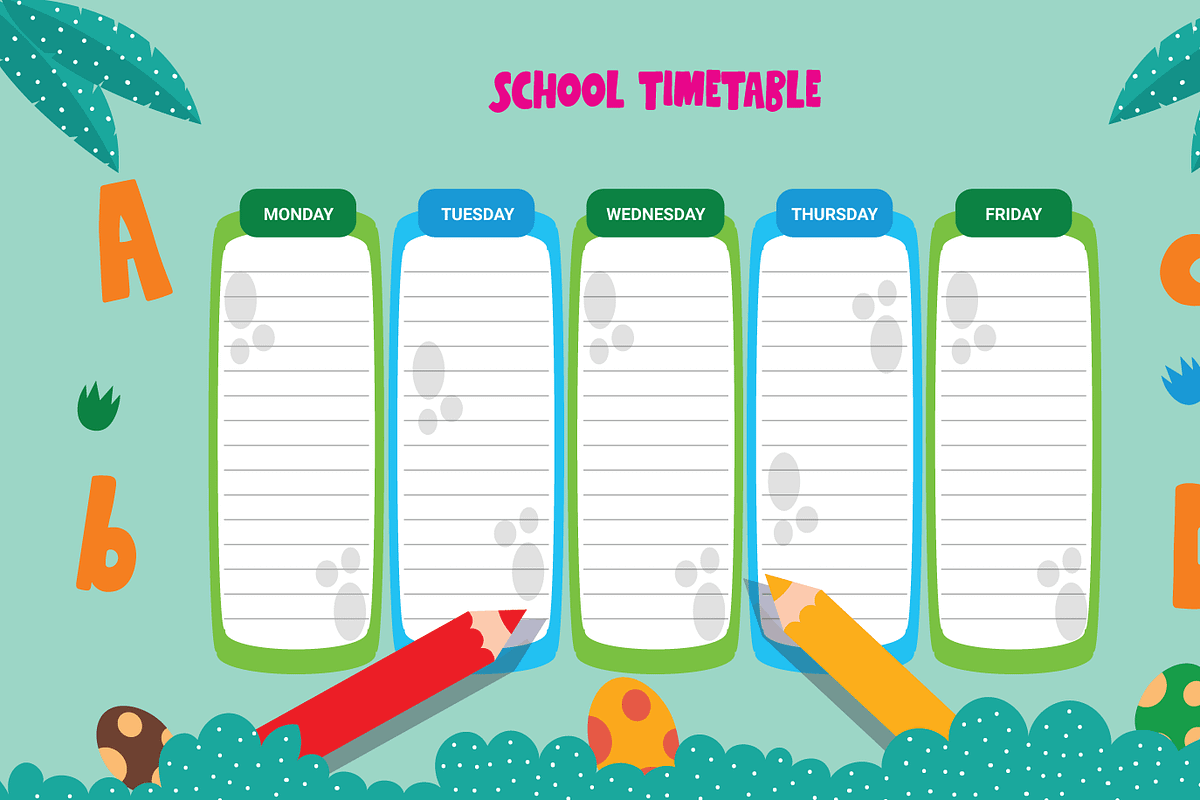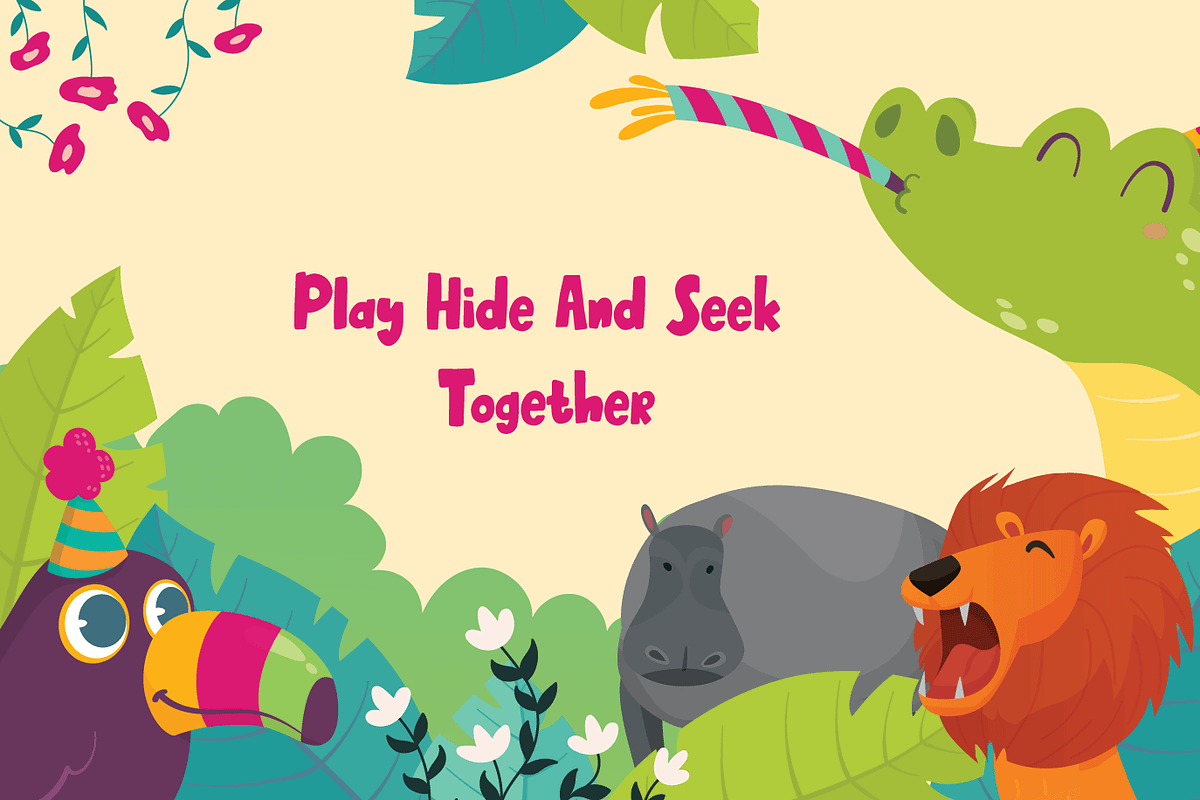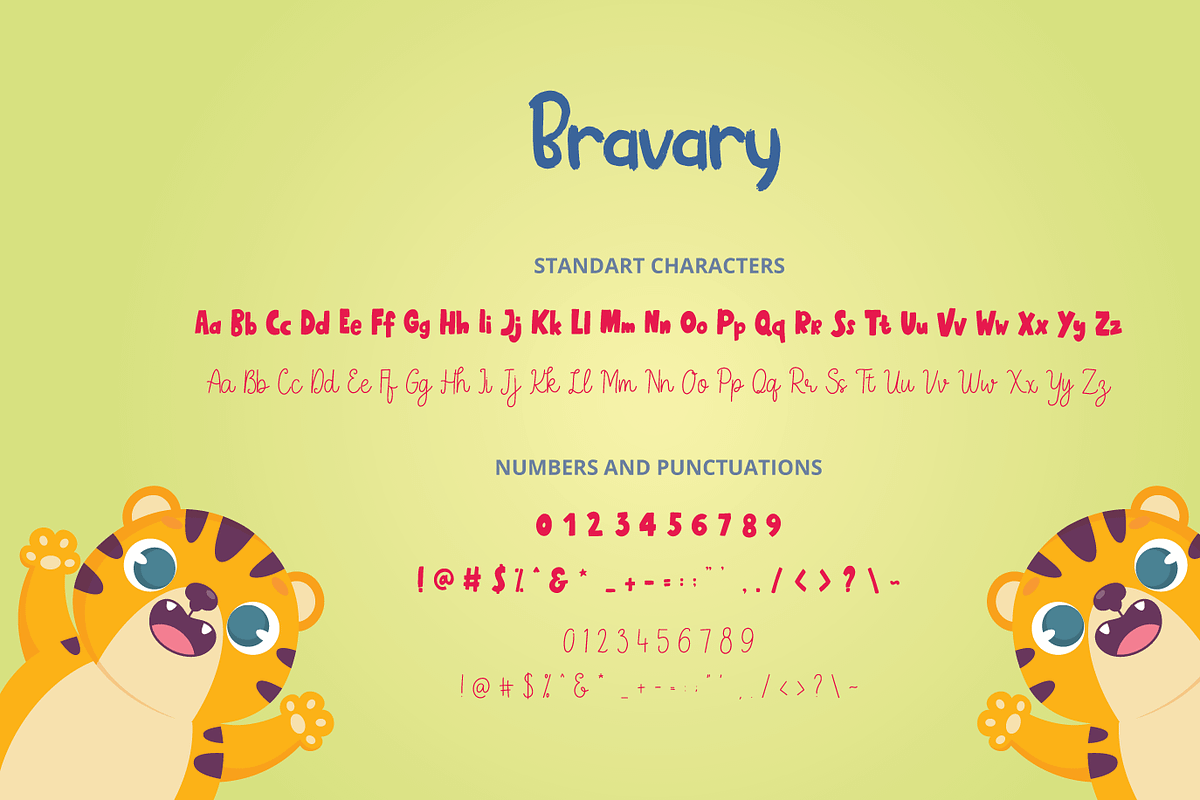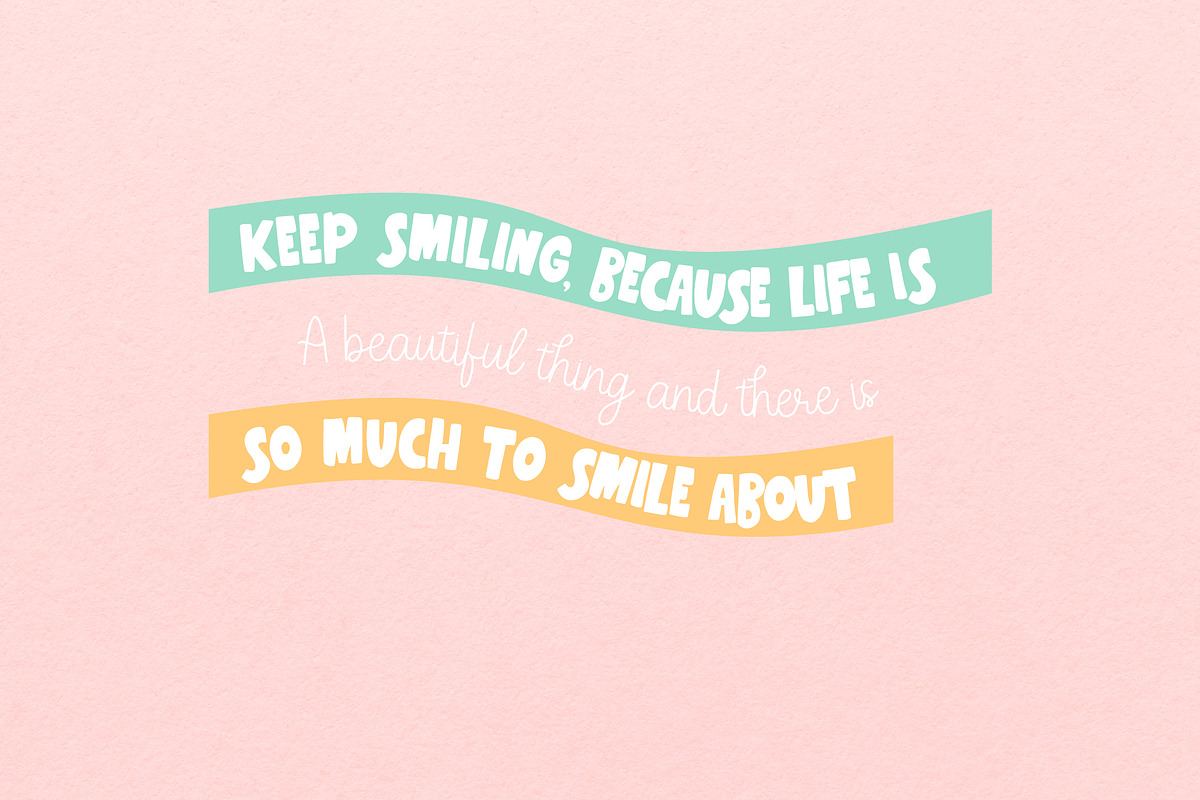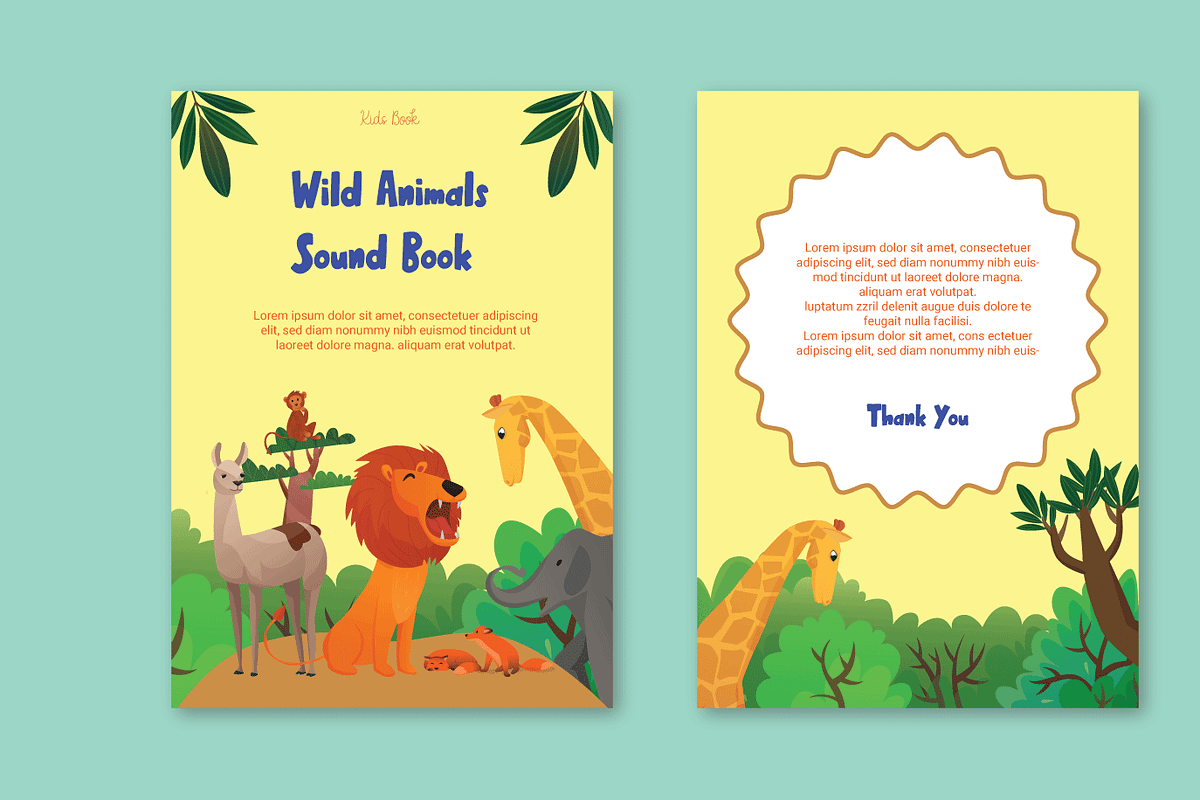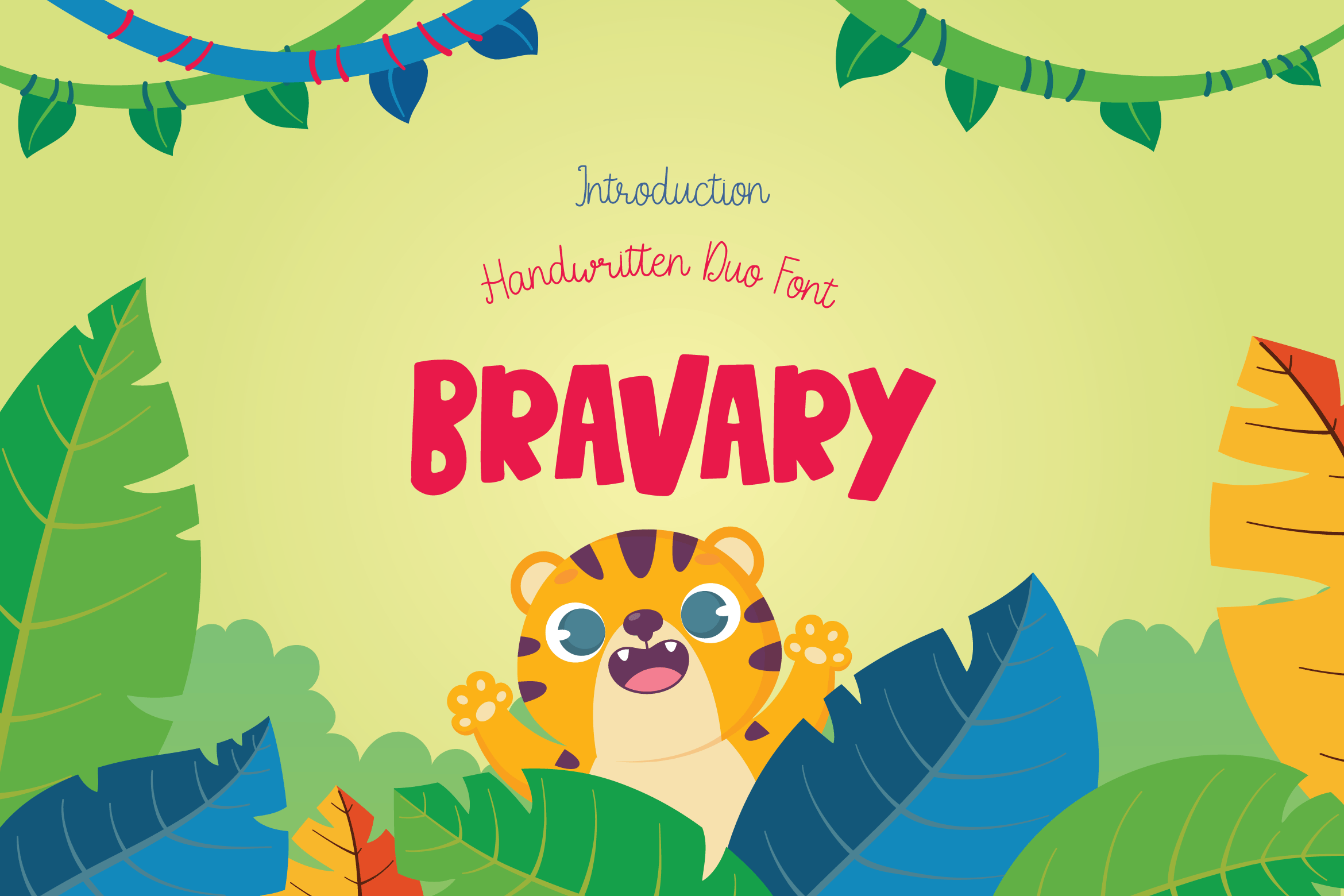
Children's Book Handwritten Font Duo
Bravary is a handwritten font that comes with 2 styles: Bold and Script. Work great for children's book and also other design needs like branding, modern advertising design, logos, poster quote, book/cover Title, editorial design, website/blog, card, custom mug, pillow, t-shirts, and any hand-lettered needs.